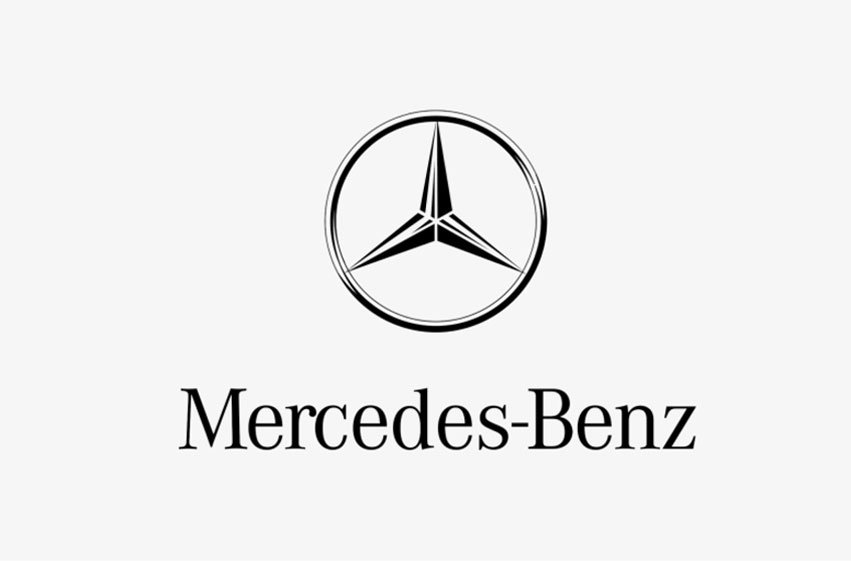
Mercedes Benz Font
Mercedes Benz Fontis a trendy font family. Mercedes Benz was established on 28 June 1926 in Stuttgart, Germany by Karl Benz and Gottlieb Daimler as two co-founders. By 2018, it had become the biggest selling car brand worldwide selling over 2.31 million vehicles.
Due to its immense popularity, designers are eager to use the font used for the Mercedes title. The letters in its logo use font that is strikingly similar to that of Corporate A Font Family by URW++ (Unternehmensberatung Rubow Weber), a digital typeface foundry responsible for designing this font that was first released for public release in 1989.